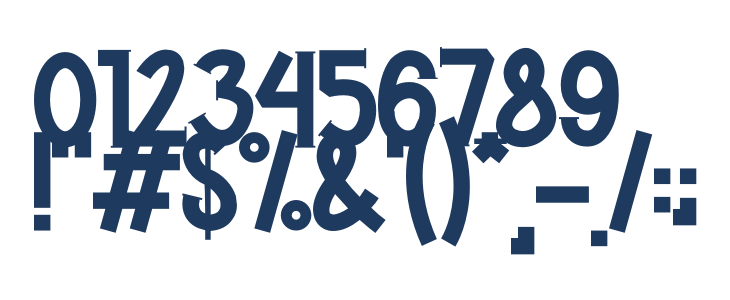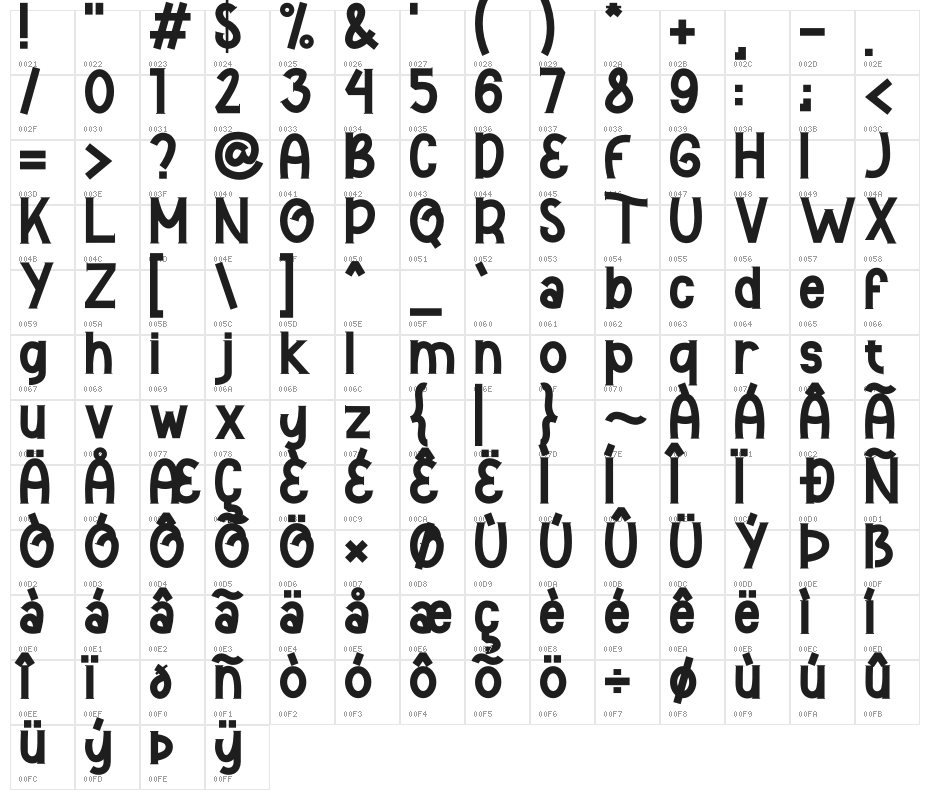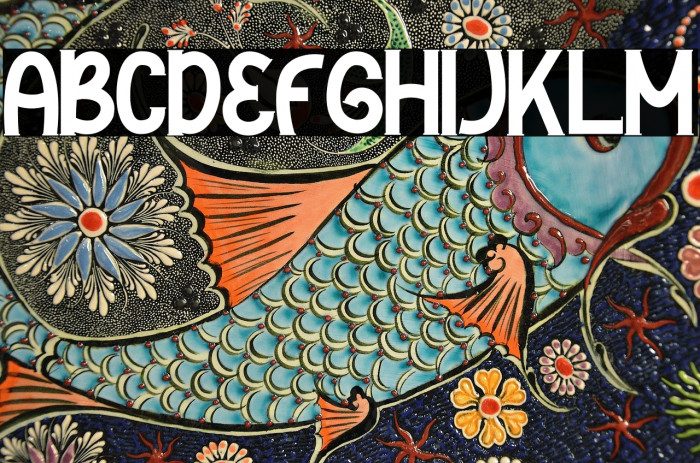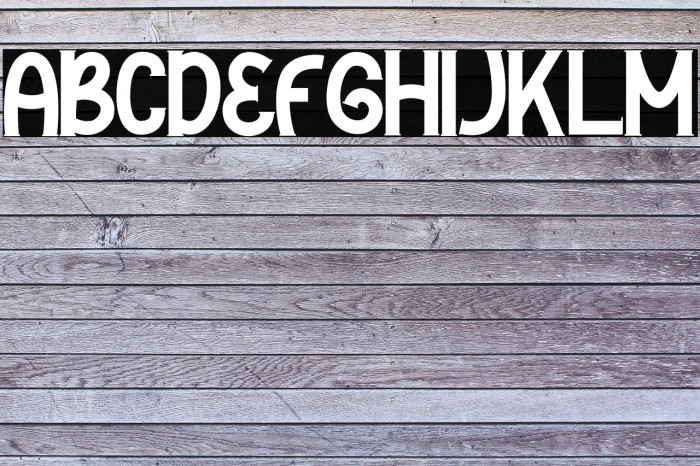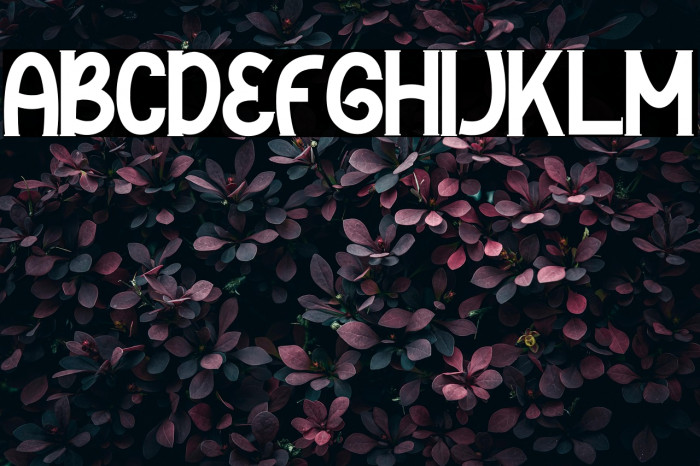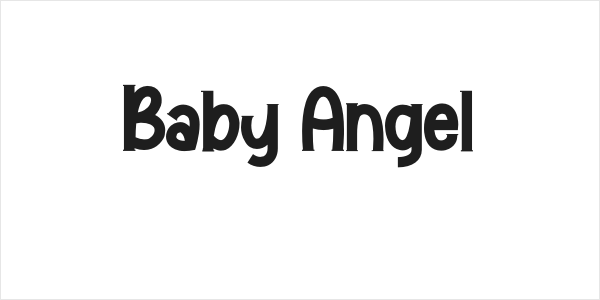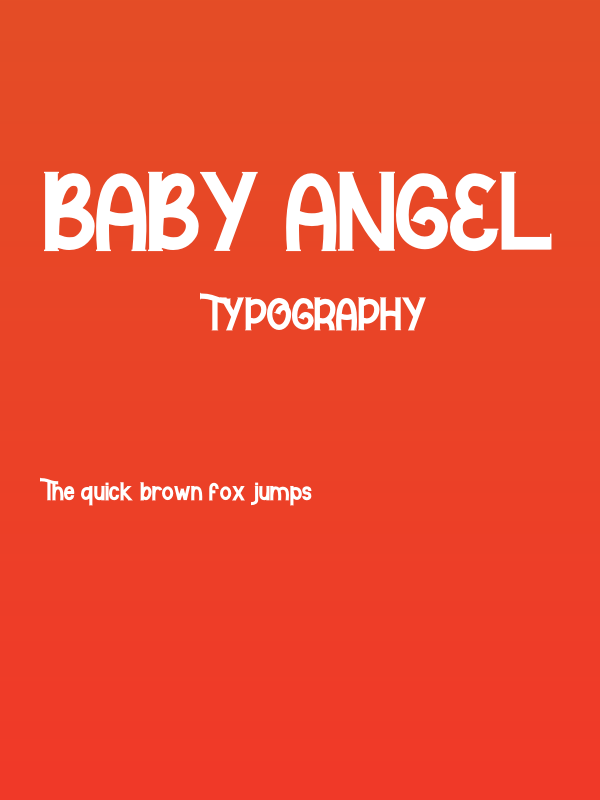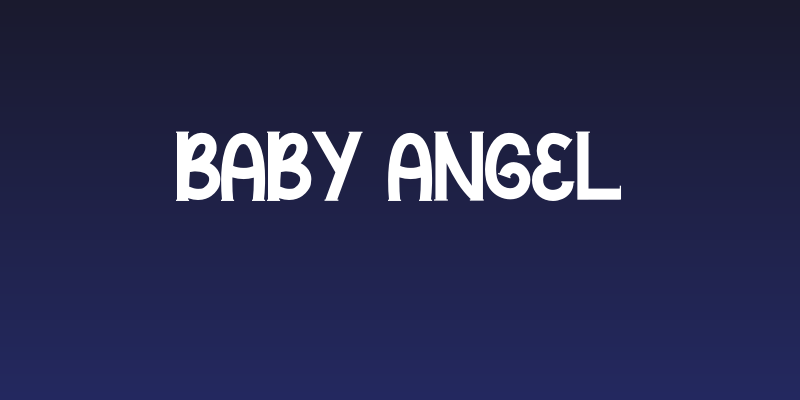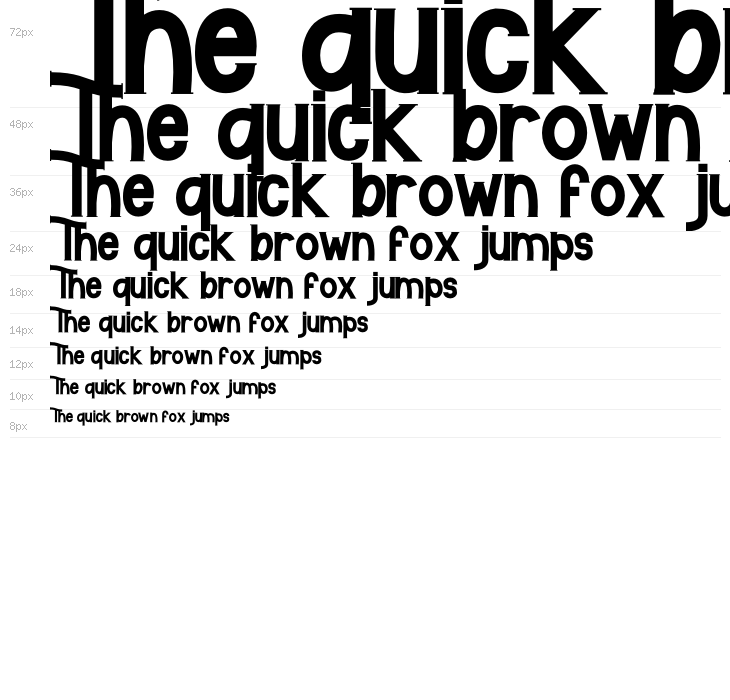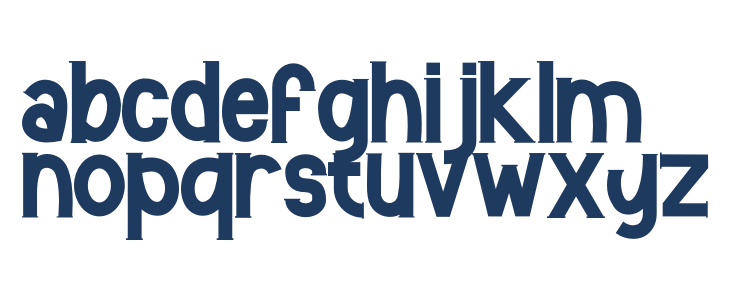
Baby Angel Font
Baby Angel Description
This playful and whimsical font features a unique blend of bold and curvy elements, creating a lively and engaging appearance. The uppercase letters are characterized by their rounded edges and occasional swirls, adding a touch of fun and creativity. The lowercase letters maintain a consistent style with a slightly more compact form, ensuring readability while retaining the font's distinctive charm. Numbers and special characters are designed to match the overall playful aesthetic, making this font suitable for a variety of creative applications. Its bold presence and artistic flair make it ideal for projects that require a touch of personality and vibrancy.